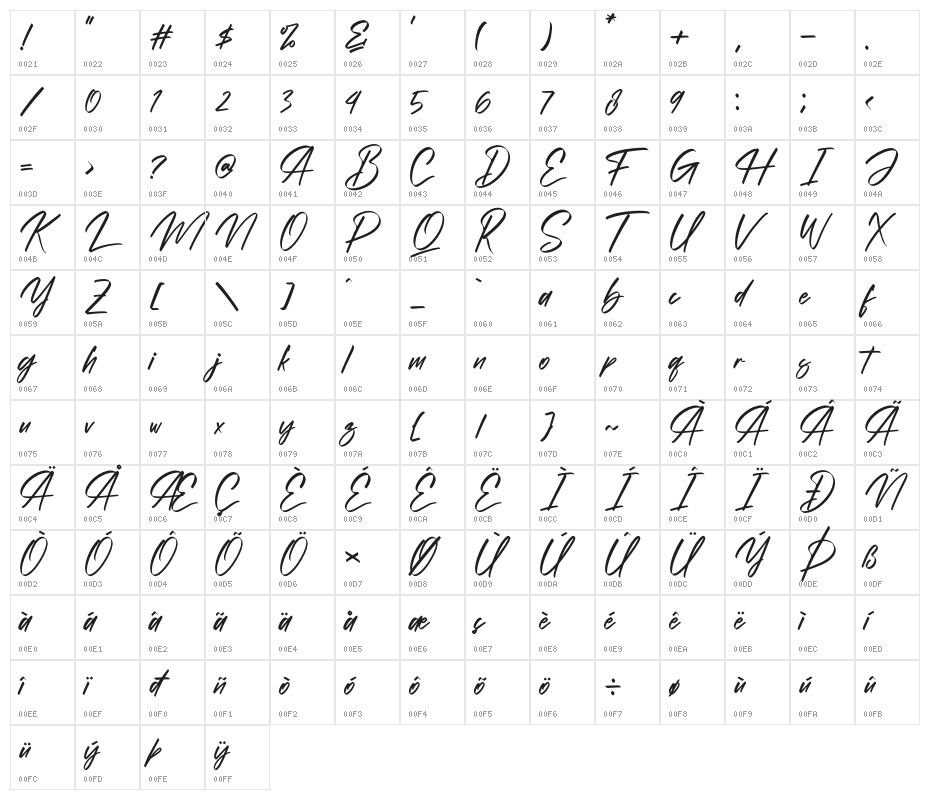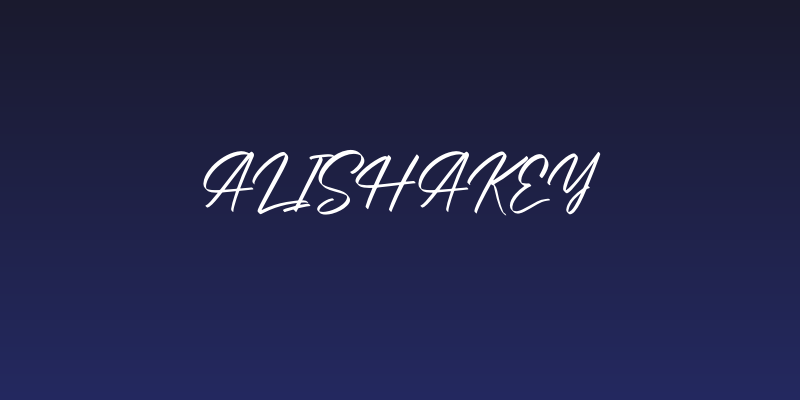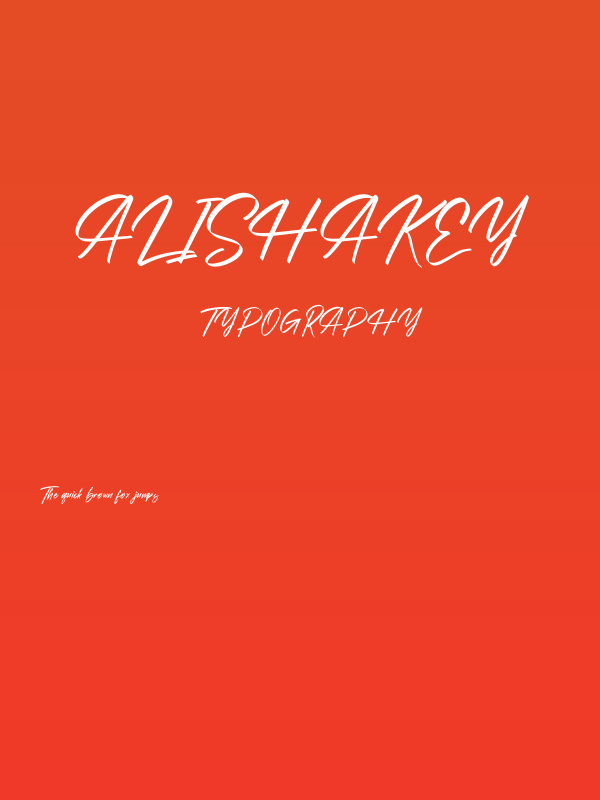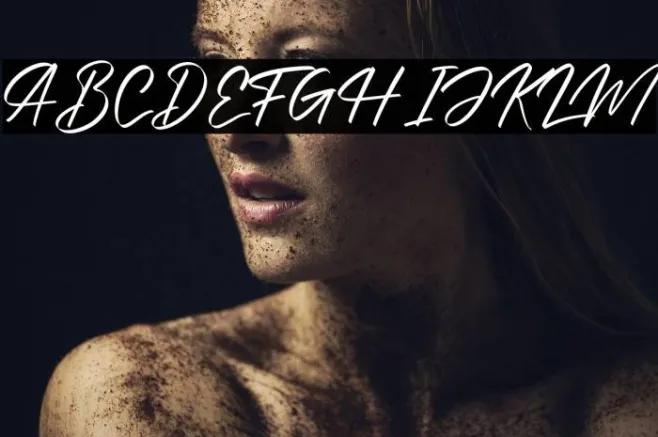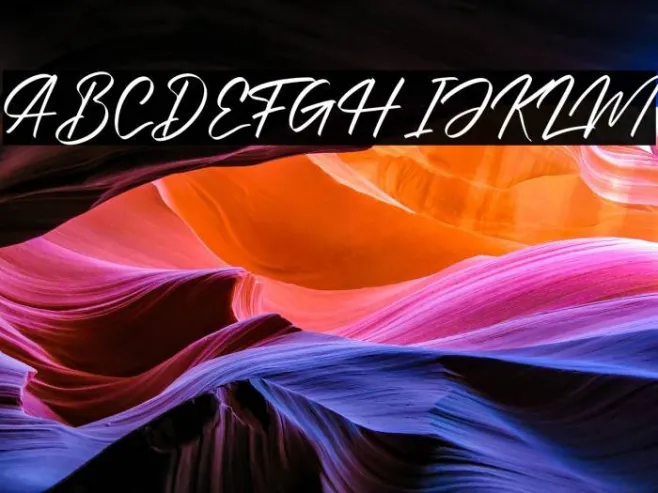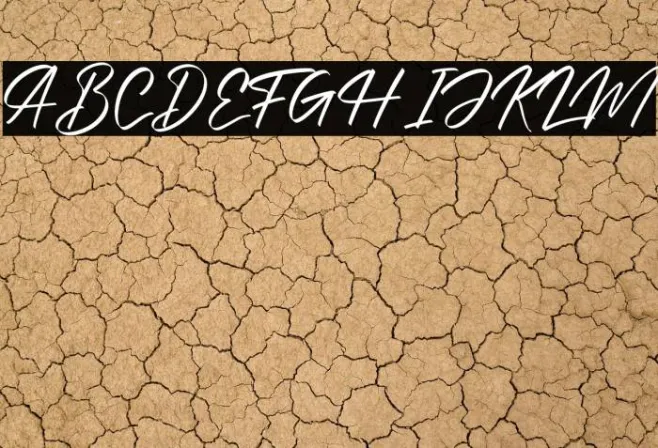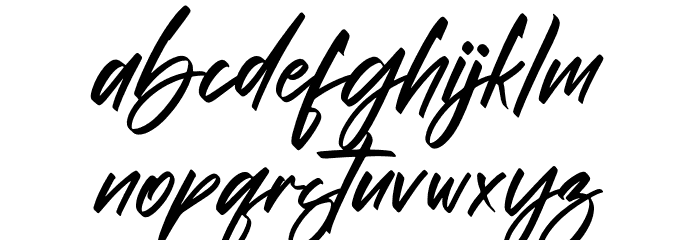
Alishakey Font
Alishakey Description
This font features a dynamic and expressive script style, characterized by fluid, cursive strokes that convey a sense of elegance and movement. The uppercase letters are slightly slanted, with varying stroke widths that add a touch of sophistication. The lowercase letters maintain a consistent flow, enhancing readability while preserving the artistic flair. Numbers and special characters are designed to match the overall aesthetic, ensuring a cohesive look across all elements. The font's design is suitable for projects that require a personal, handwritten touch, making it ideal for invitations, branding, and creative designs.
| Use Case | Logos, Invitations, Creative designs |
| Proposed Projects | Ideal for invitations, branding, creative designs, and any project needing a personal touch. |